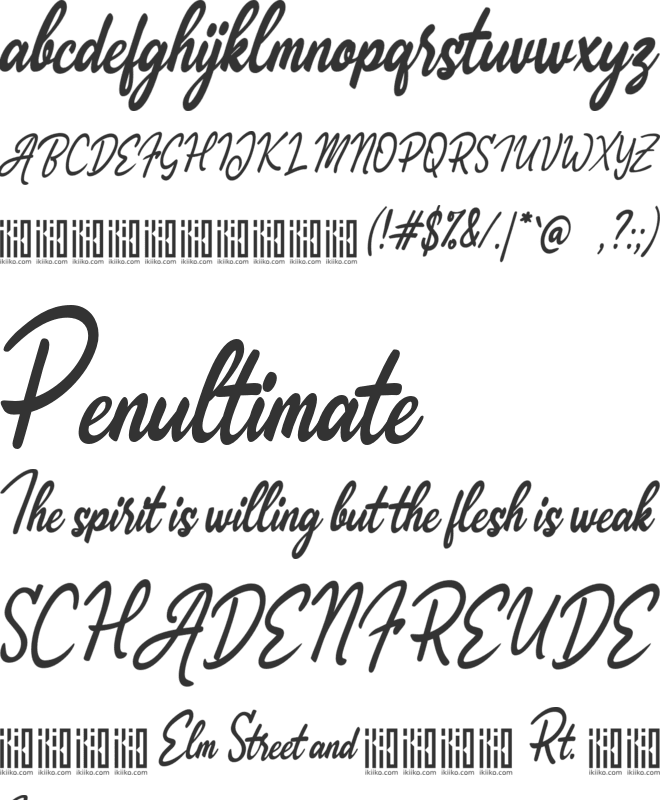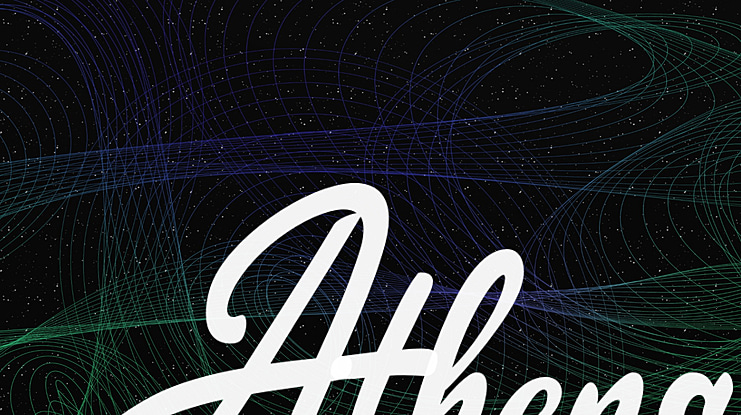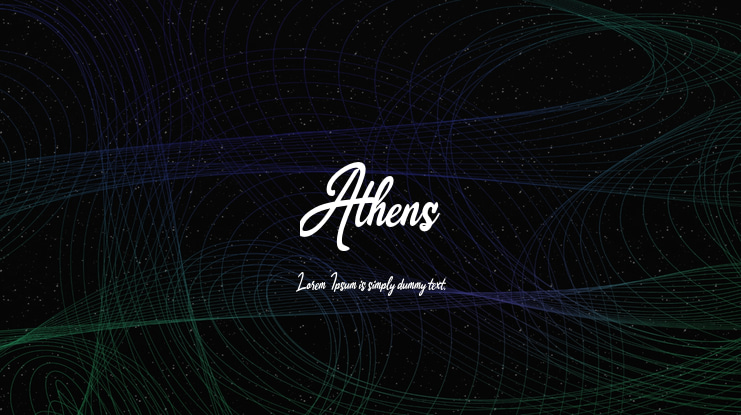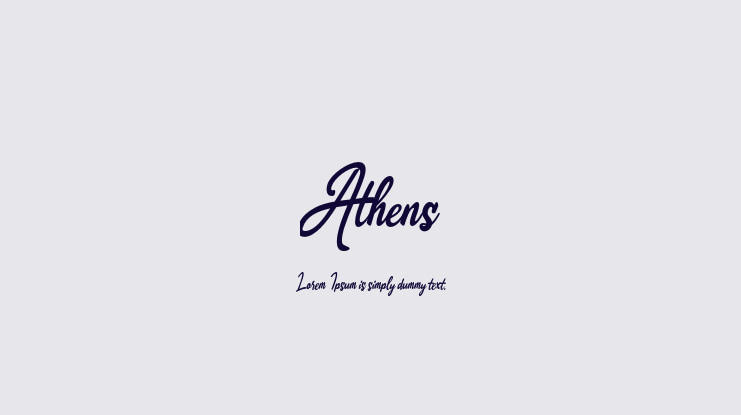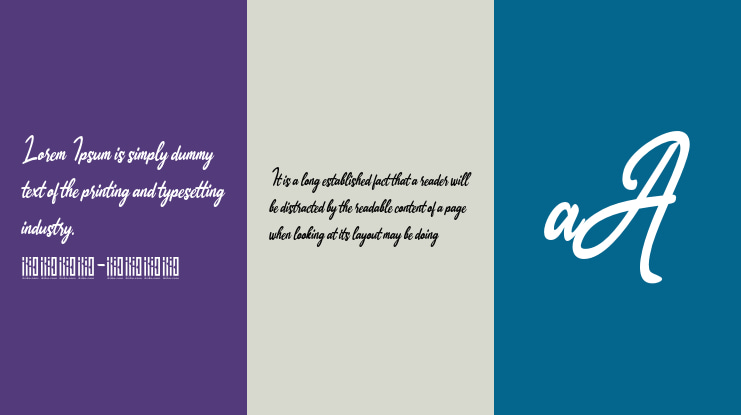
Athens Font
Introducing The Athens - Flowtype, created by ikiiko.
The Athens is inspired by the ropes in the runner's finish line. The letters are script fonts with a flexible and wavy style. This font have a unique waveform and has a large selection of stylistic sets. This typeface is perfect for an magazine cover, flyer design, poster design, inspirational quotes, photography layout, and also good for vintage product, or simply as a stylish text overlay to any background image.